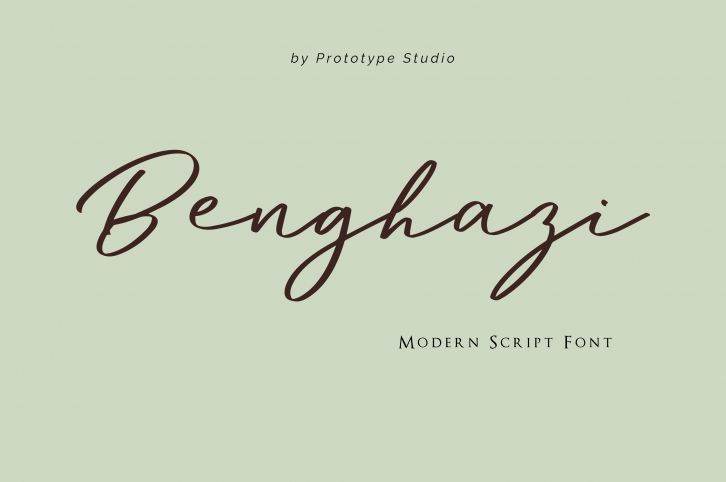
Benghazi-Modern Script FONT Download
Introducing the Modern script font, Benghazi font! For those of you who are needing a touch of elegance and modernity for your designs, this font was created for you! This font works best in a program that supports OpenType features such as Adobe Indesign, Adobe Illustrator CS, or Adobe Photoshop CC, Embroidery software, SVG font, and cutting sticker font. However, if you have older versions of these programs.What's Included